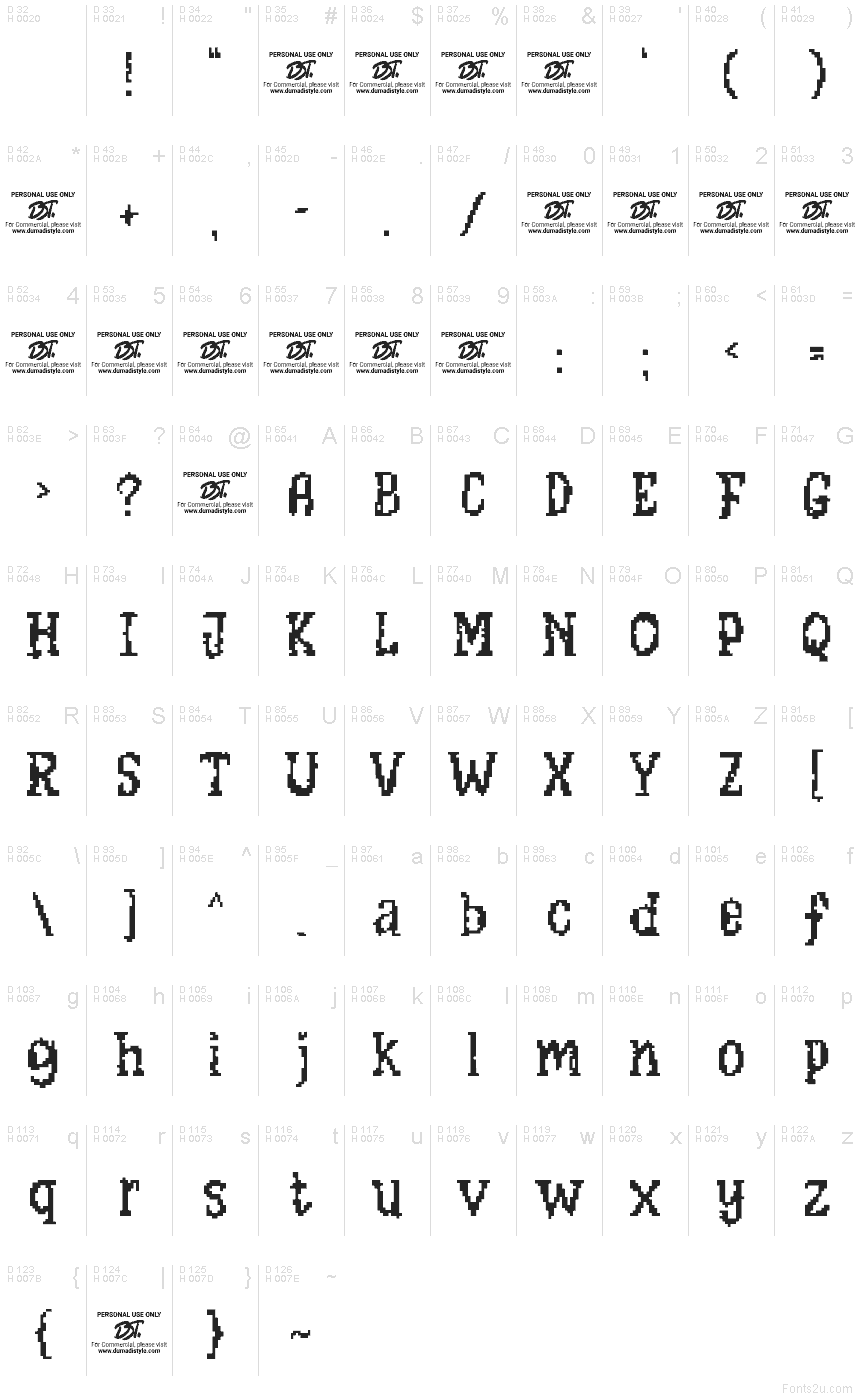
Digipixel
Digipixel font by DumadiStyle is a pixelated bitmap font featuring a condensed geometric design and retro-inspired style. It has an overall digital aesthetic that gives off a nostalgic feel that fans of old games, computers, and operating systems will especially appreciate.
The free font would work best in website headers, banners, logotypes, posters, packaging designs, flyers, social media posts, invitations or greeting cards. Labels and covers are also among other suitable options.